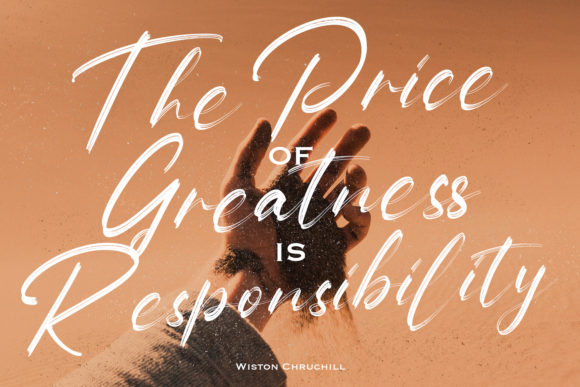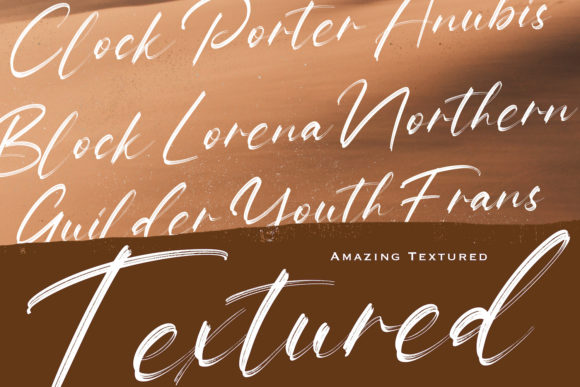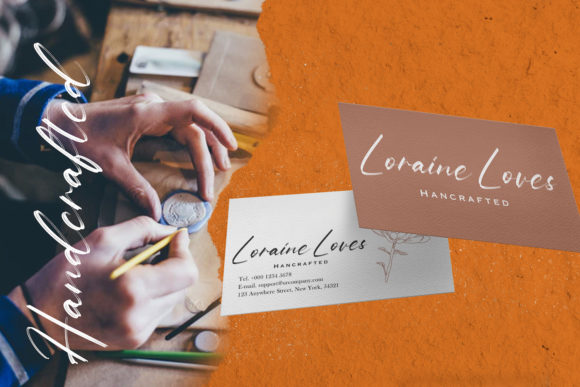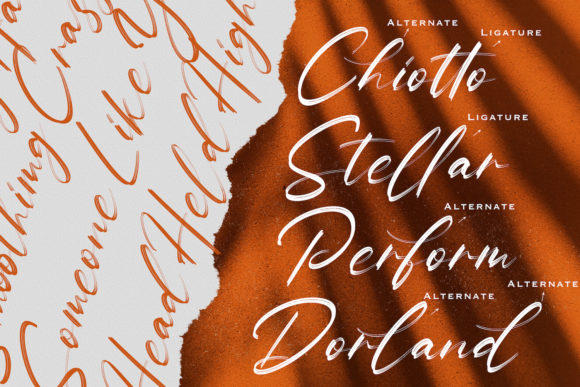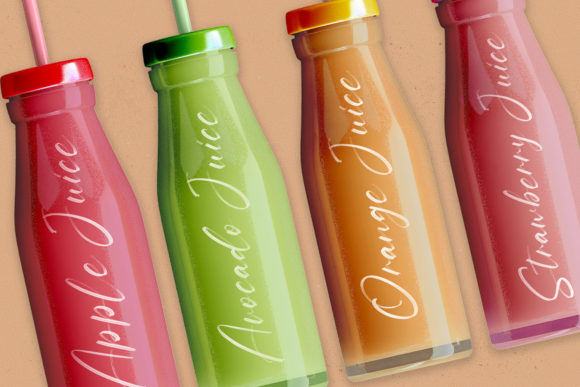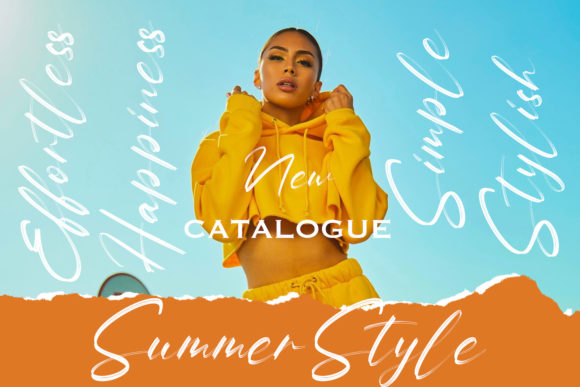
Introduction to Baliung Font
As a designer, have you ever stumbled upon that perfect font that elevates your entire project to the next level? For me, that moment came when I discovered the Baliung Font – a flowing handwritten font that exudes elegance and sophistication. Its unique, timeless style instantly captured my heart, and I knew I had to share it with the design community.
What sets the Baliung Font apart is its versatility – it’s perfect for a wide range of creative projects, from branding and marketing materials to social media graphics and editorial content. Its high-quality design makes it a valuable resource for designers who crave that extra oomph in their work.
Whether you’re looking for a free download or a design resource to spice up your next project, the Baliung Font is a must-have. With its transparent background, you can easily integrate it into any design, making it a seamless addition to your creative arsenal. In this article, we’ll dive deeper into the world of the Baliung Font and explore its many uses.
Key Features of Baliung Font
- Features a unique, modern design with a transparent background for versatility.
- Perfect for designers looking for a modern and stylish font to enhance their design.
- Supports a wide range of languages and characters for global design applications.
- High-resolution design ensures crisp and clear display on various devices and resolutions.
Honest Review: Baliung Font
I recently came across the Baliung Font and was impressed by its unique aesthetic. This free download has become a valuable addition to my design resource library.
The high quality of the font is evident in its crisp, clean lines and elegant design. I particularly appreciate the transparent background, which makes it easy to layer over other design elements.
Here are some of the things that work well for the Baliung Font:
- Unique and creative design that adds a touch of sophistication to any project
- High quality and crisp lines make it perfect for digital and print applications
- Transparent background makes it easy to layer over other design elements
However, I do have a few limitations in mind:
- May not be suitable for projects that require a bold or playful font
- Some users may find the design too minimalist or simple
Overall, I’m impressed with the Baliung Font and would highly recommend it to designers working on creative projects. Its high quality and unique design make it a valuable addition to any design resource library.
The Baliung Font is perfect for a variety of creative projects, including logos, business cards, brochures, and presentations. Its high quality and transparent background make it an ideal choice for designers looking for a versatile design resource.
To get the most out of the Baliung Font, experiment with different font sizes, colors, and combinations. The font’s high quality ensures a professional-looking result, making it a great choice for any creative project.